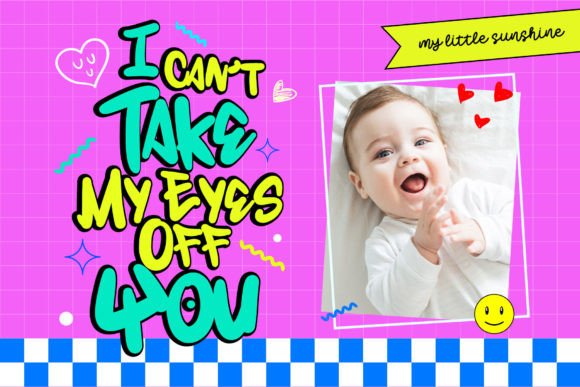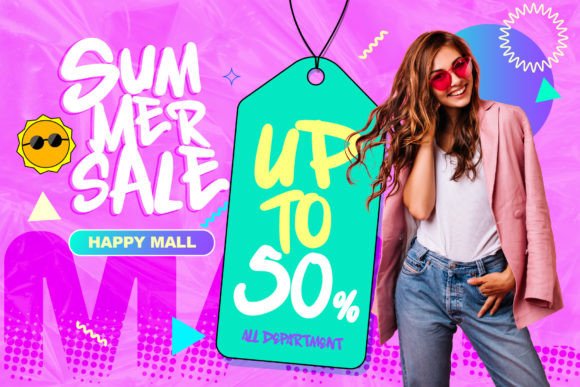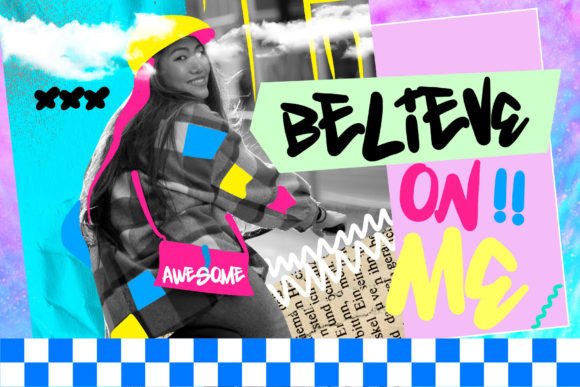
Introduction to Incredible Love Font
Incredible Love is an awesome, graffiti-styled display font that has a street art vibe.
This font is suitable for designs such as t-shirts, sportswear, logos, advertisements, clothing, and more .
Key Features of Incredible Love Font
Why Choose Incredible Love Font?